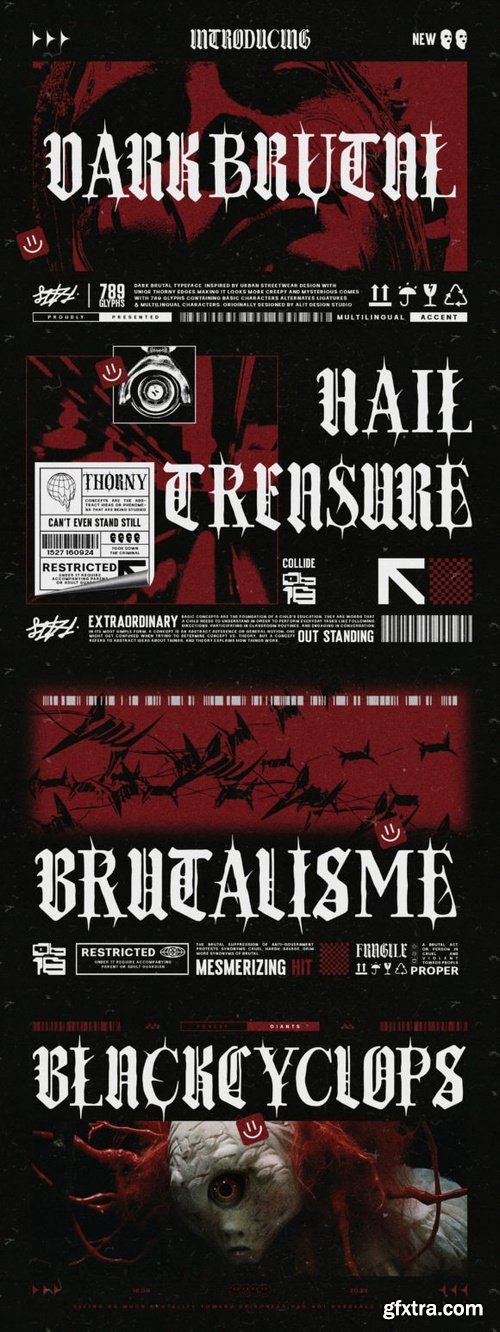
- Introducing Dark Brutal Typeface, a powerful and unapologetically rugged blackletter font crafted for those who embrace the intensity of bold design. This font embodies the spirit of rebellion with its sharp edges, distressed strokes, and dark, medieval-inspired aesthetic. Perfect for creating a fierce visual impact, it’s ideal for projects that demand attention—whether it’s in music, fashion, or alternative branding.
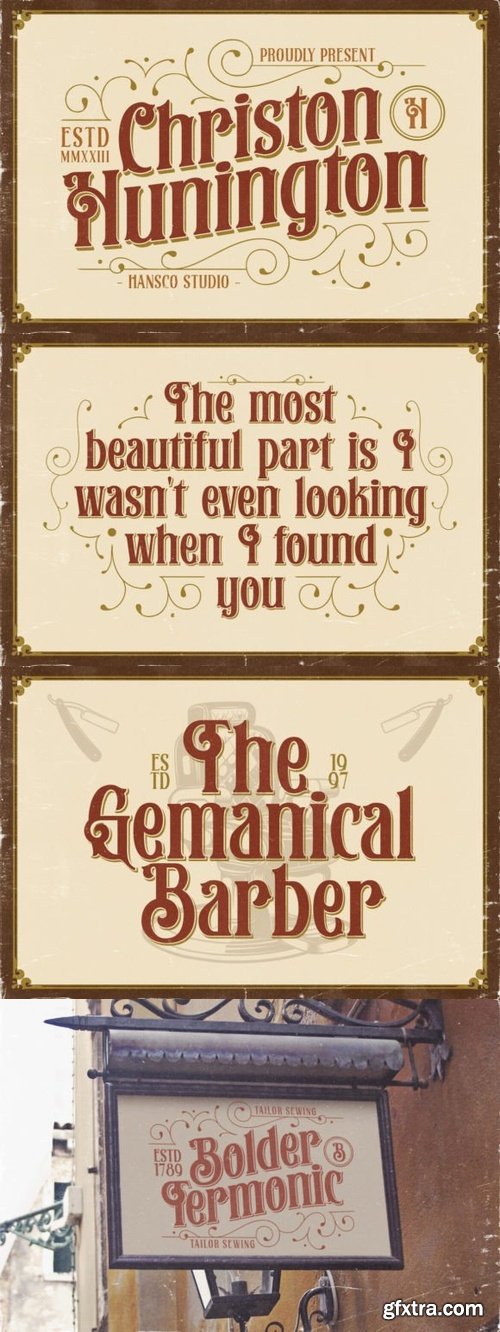
- Christon Hunington is a Vintage typeface font, it will add an old-time charm to any design project. Don’t miss the opportunity to infuse your designs with the elegance and nostalgia of vintage typography. This vintage font is the perfect companion for your creative journey.
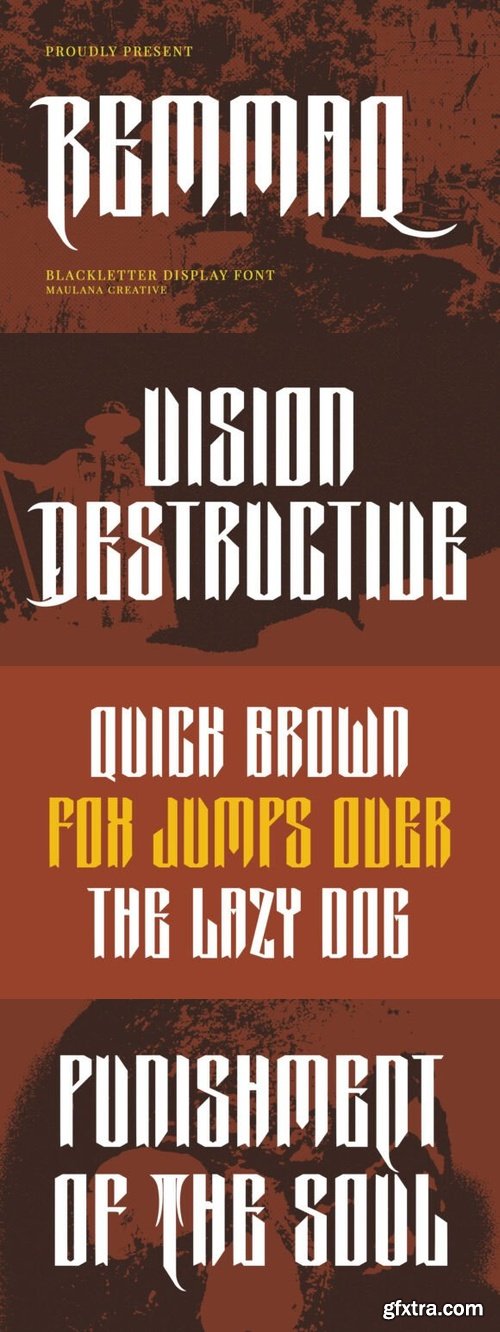
- Remmaq is a striking blackletter display font that blends medieval flair with modern precision. Featuring bold vertical strokes and sharp edges, it evokes a sense of authority and tradition. Ideal for metal band logos, gothic posters, book covers, or any project that needs a bold, old-world presence with contemporary impact.
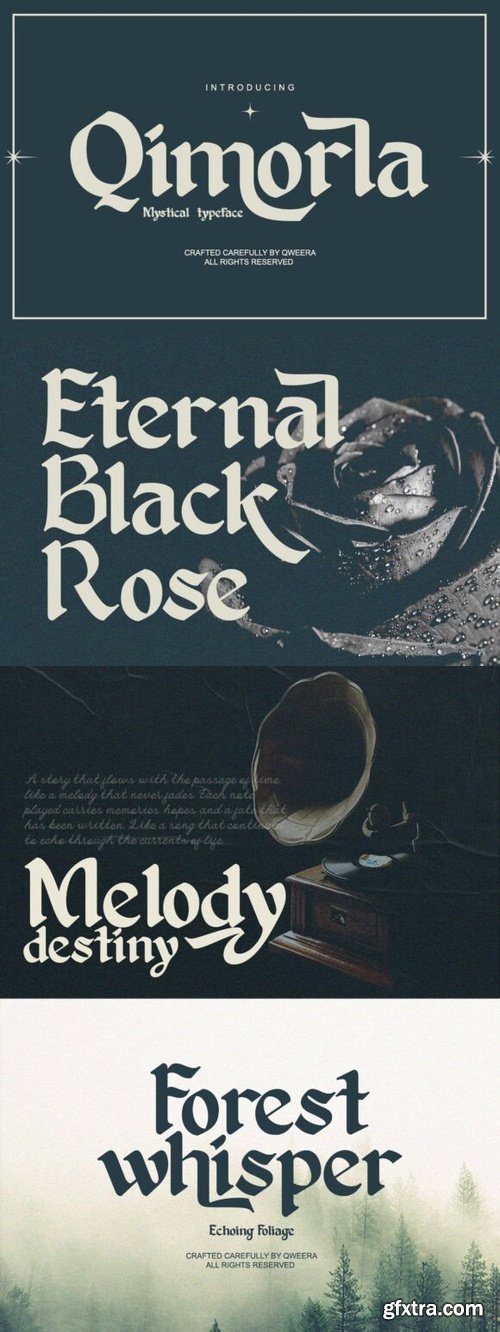
- Qimorla is a striking blackletter font that masterfully blends medieval calligraphy with contemporary edge. Featuring both regular and italic versions with intricate alternates and ligatures, this typeface delivers unmatched versatility for projects demanding bold, dramatic typography.
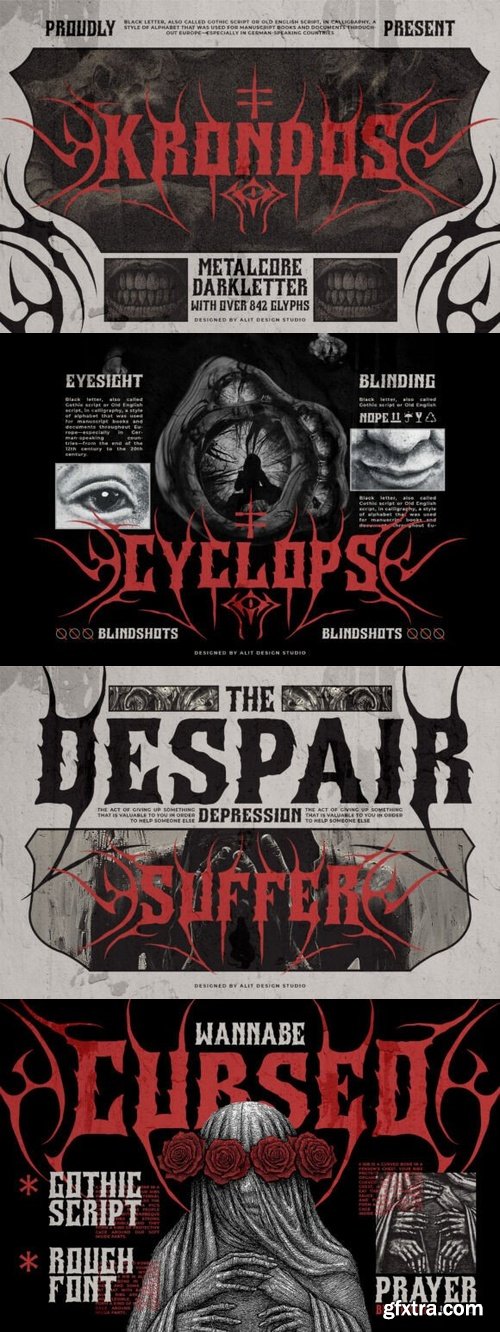
- Summoned from the crypt of forgotten scripts, the Krondos Typeface is not for the faint of heart.
- Crawling with thorny tendrils and shaped like roots from the underworld, Krondos is a gothic metal-inspired typeface that fuses horror and harmony. Each letter is carefully crafted to resemble ancient carvings from a cursed forest—twisted, sharp, and alive. Yet beneath its haunting surface lies a surprising clarity, making it perfect for everything from haunted event posters to dark fantasy titles and underground music branding.
- With over 842 glyphs lurking in its depths, including eerie alternates and bone-chilling symbols, Krondos gives you the tools to conjure something truly sinister.
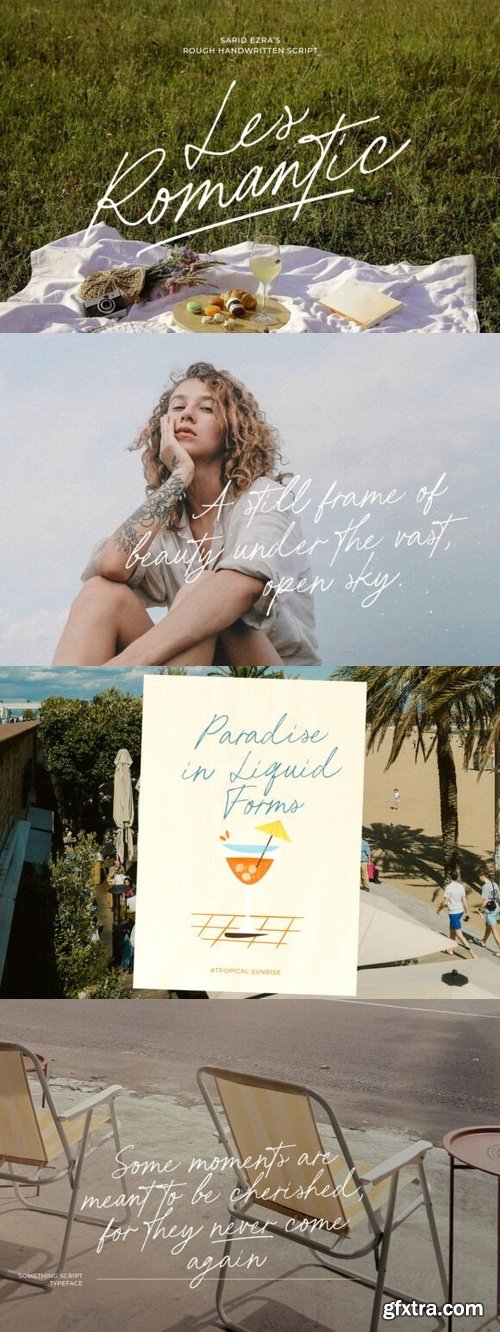
- Les Romantic is a rough script with ligatures that will make your designs looks more naturally handwritten. You can use this font for any purposes such as label, logo, handwritten quotes, wedding invitations and more. This font also have underline that you can access from ligature feature, just type underscore + number(1-3) in the middle of your words. Les Romantic also come with multilingual support.
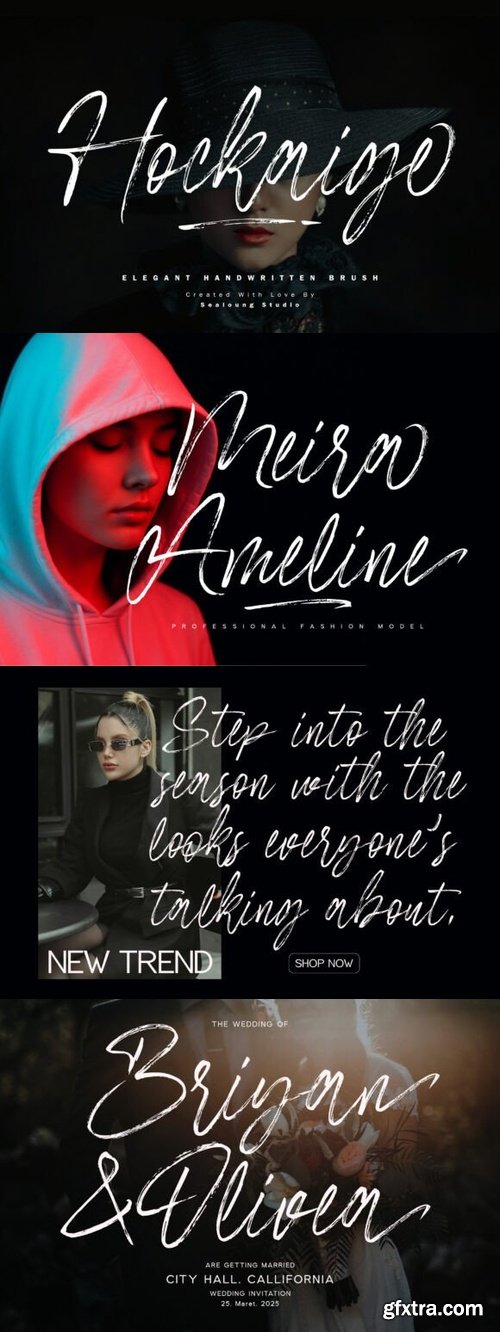
- Hockaige is an elegant handwritten brush font that combines the organic beauty of brushstrokes with a refined and sophisticated design. Its flowing, dynamic curves and delicate brush marks create a harmonious and artistic feel, making it the perfect choice for designs that require a personal, yet polished touch.
- Designed with meticulous attention to detail, Hockaige adds authenticity and elegance to your projects. Whether you're creating logos, invitations, branding materials, or creative designs, this font brings a timeless, handcrafted feel that stands out with grace and charm.
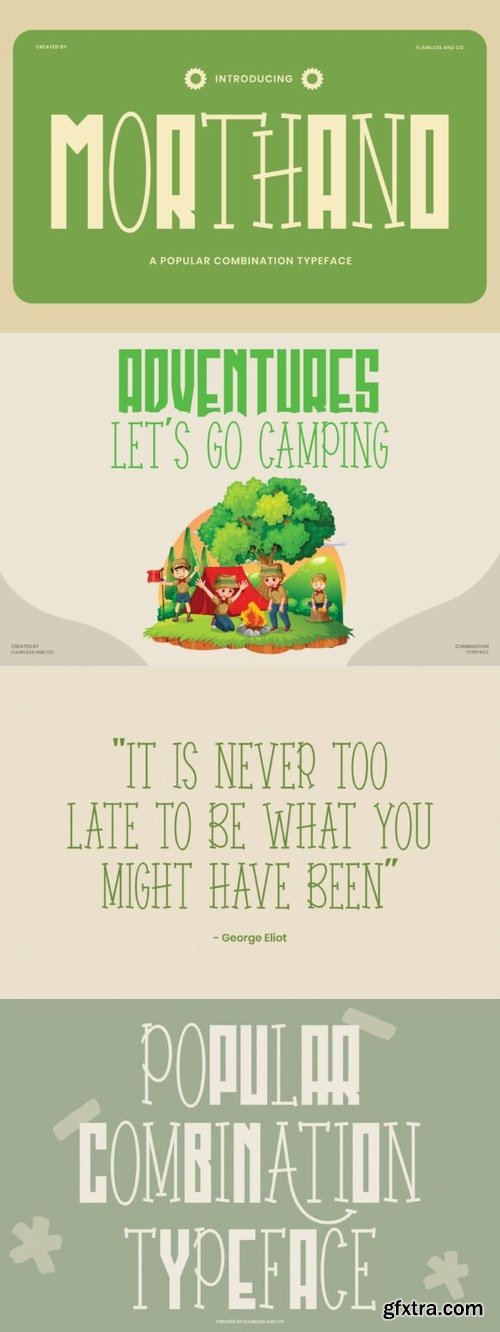
- Morthano is a lively and imaginative combination font that brings together the best of fun and creativity. Featuring a mix of quirky shapes, bold strokes, and dynamic character, Morthano is perfect for playful branding, kids’ designs, creative packaging, and eye-catching social media posts. Its energetic style makes every project feel fresh, youthful, and full of personality. Whether you’re creating a logo, poster, or anything in between, Morthano adds a vibrant spark that stands out from the crowd.
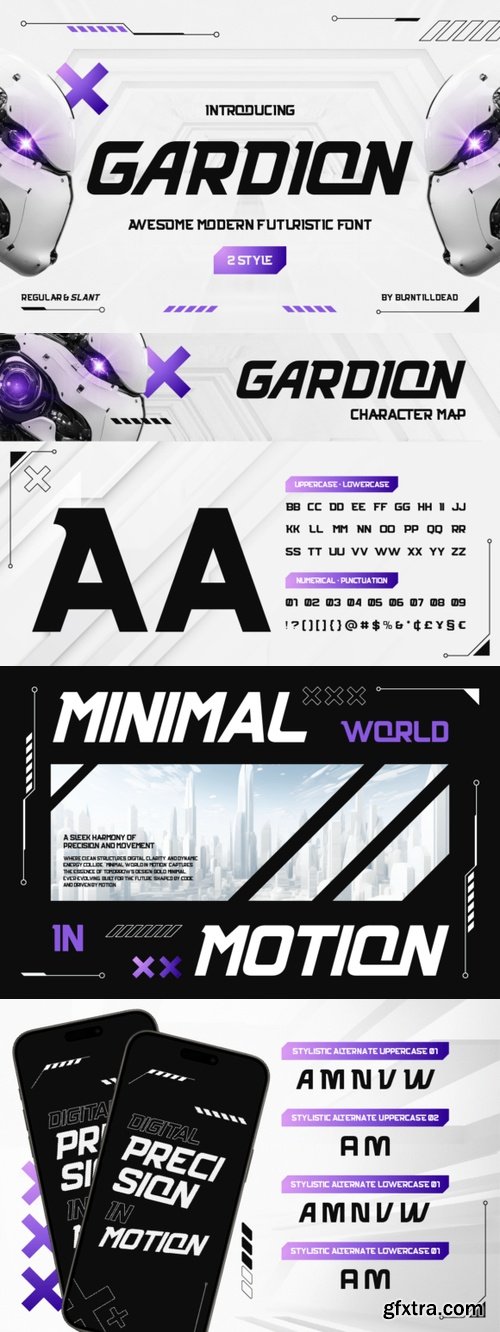
- Introducing Gardion, an awesome futuristic font designed to bring a cutting edge vibes. With its sharp geometric shapes and modern aesthethics. Come with 2 styles: Regular and Slant. The regular style look strong and steady, make it look futuristic presence. Slant is dynamic and fast paces, ideal for energetic and action-driven design. Gardion is carefully crafted to eye catching and highly readable, making it a good choice for technology branding, gaming & esport logos, futuristic UI/UX, space theme, sci-fi posters, automotive design, and more.
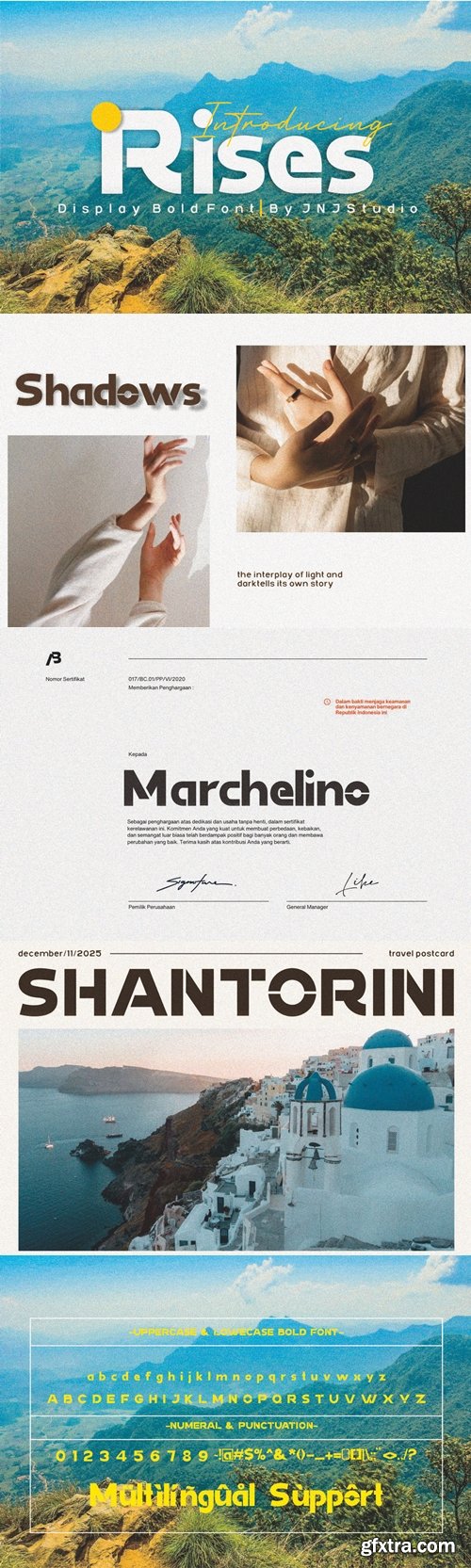
- Introducing “Rises” is a powerful Display Bold typeface that commands attention with every letter. Designed for maximum impact, Rises features thick strokes, sharp angles, and a confident structure—perfect for headlines, posters, logos, and branding that need to stand tall and make a statement. Its bold presence radiates energy and modernity, while its clean edges ensure clarity and legibility even at large sizes. Whether you’re crafting a futuristic title or a daring visual identity, Rises brings strength, boldness, and unmistakable style.
- Scrivener Handwritten Blackletters Font is a distinct, highly detailed, and Horror Metal Font font. It would make a great choice for exquisite Music, Poster, retro-urban designs, tattoo business branding, logos, vintage designs, and more.